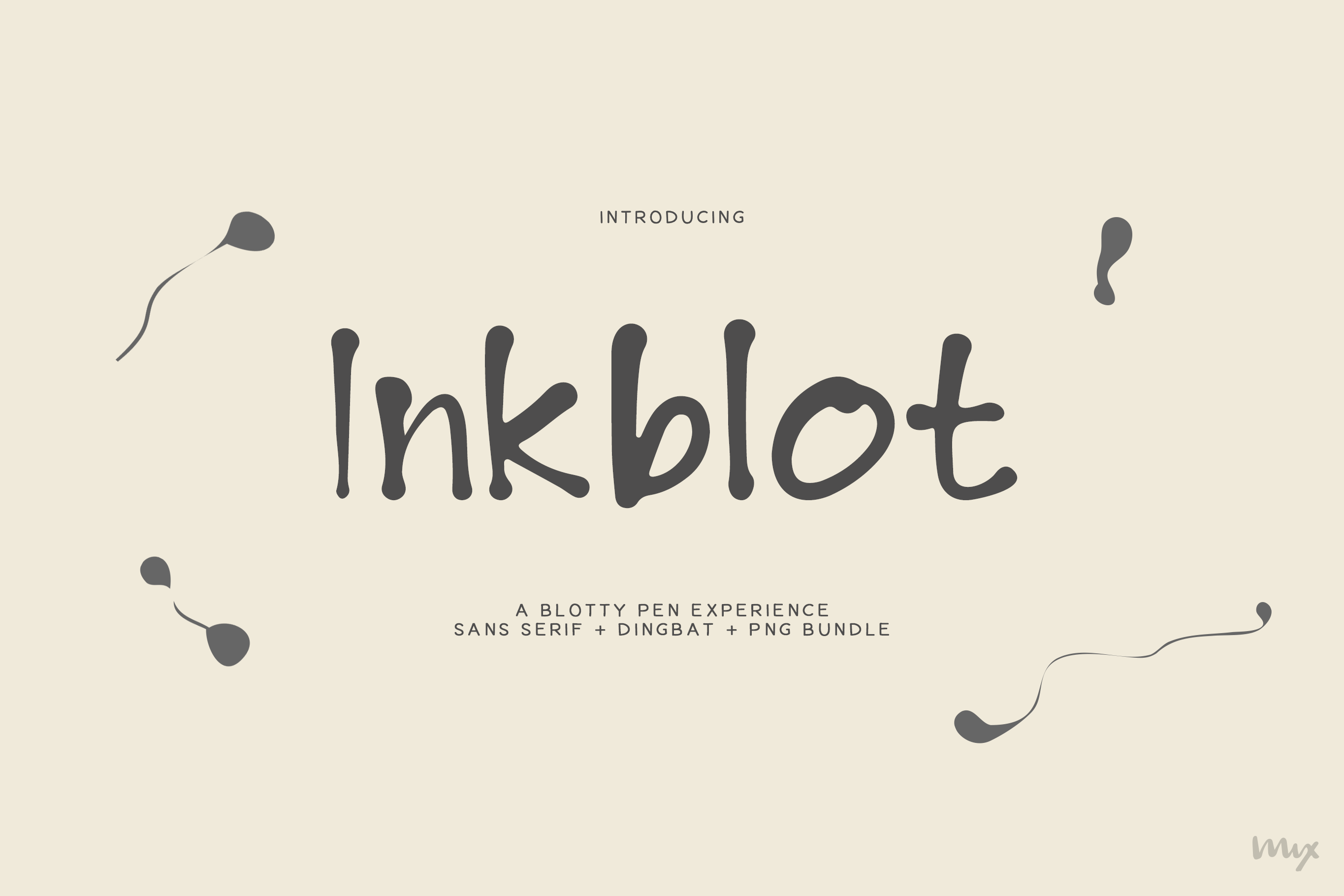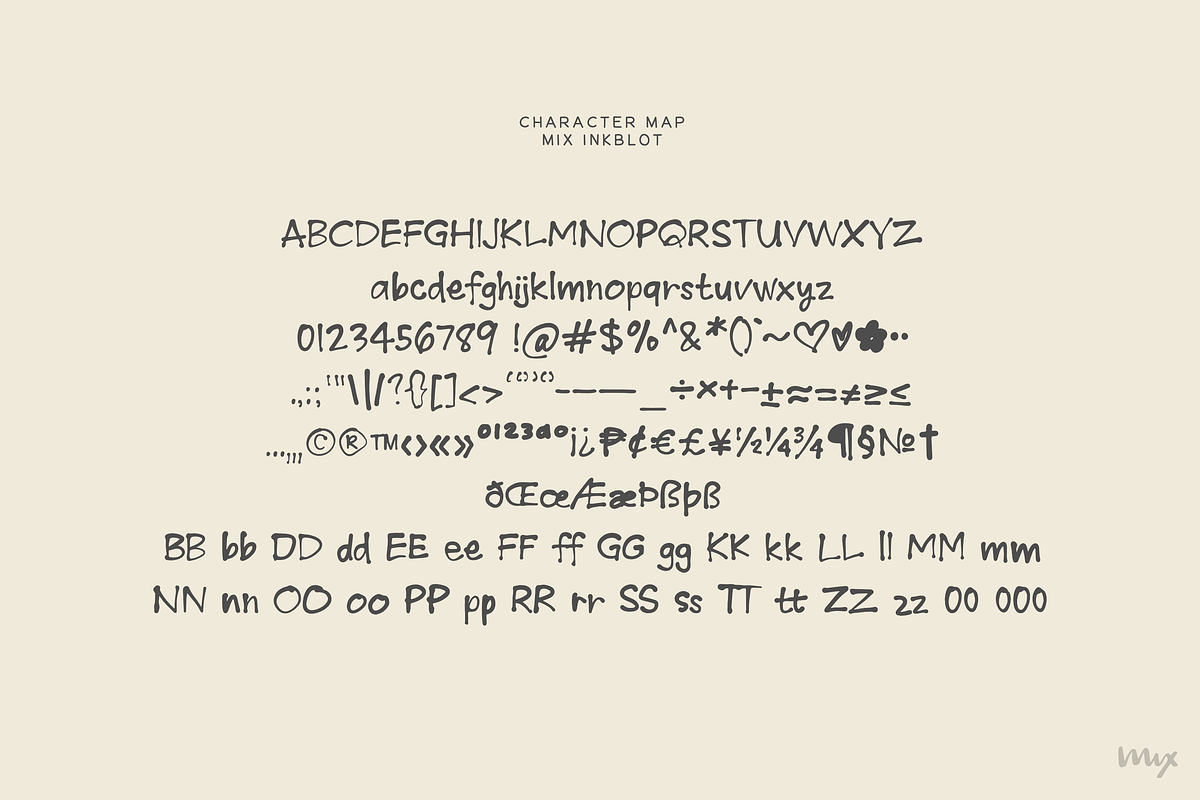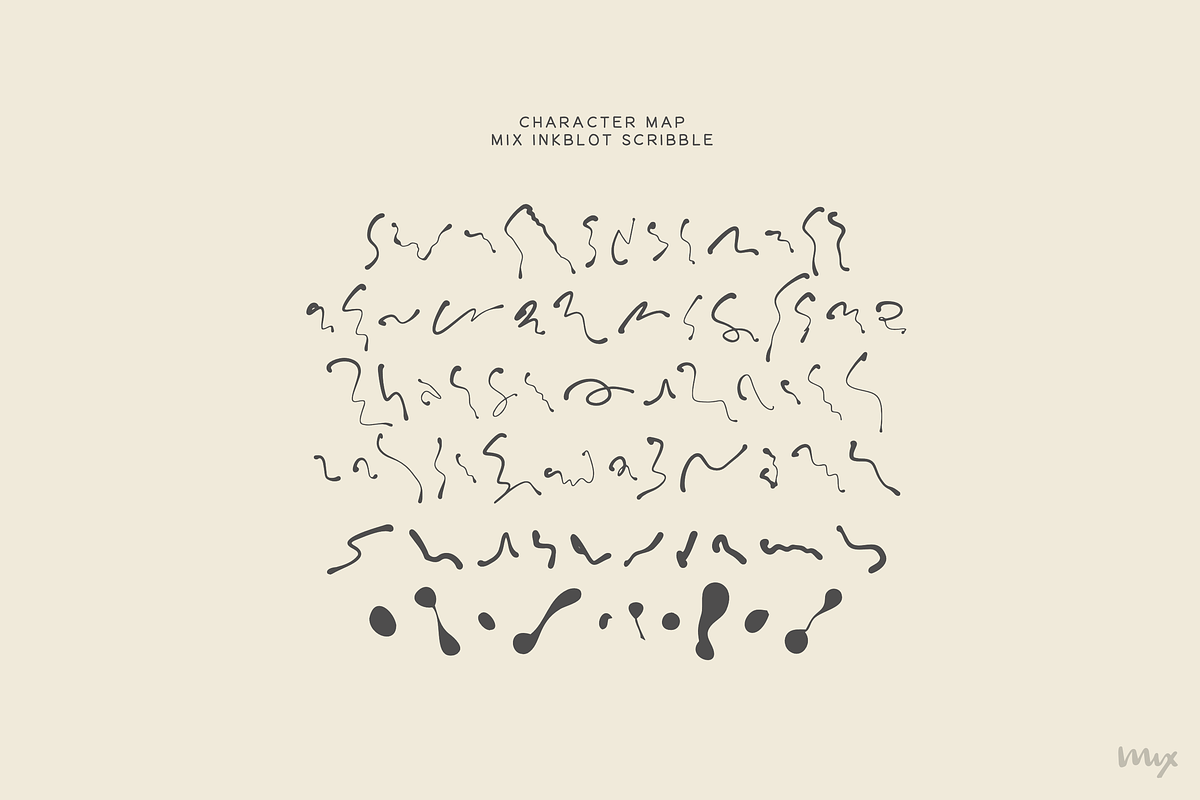
Inkblot Font + Ink Dingbats
Inkblot is two hands in one download. The main face is a chunky upright print hand, the readable kind that holds up small and doesn't come apart in a full sentence. The second, Inkblot Scribble, is the opposite on purpose: an ultra-thin scrawl that isn't trying to be legible, for layering under the main type, margin marks, and anything that should look dashed off rather than set.
You get both fonts, a set of inkblot dingbats, and bonus PNG scribbles, so the hand-drawn marks work as type or drop straight in as graphics.